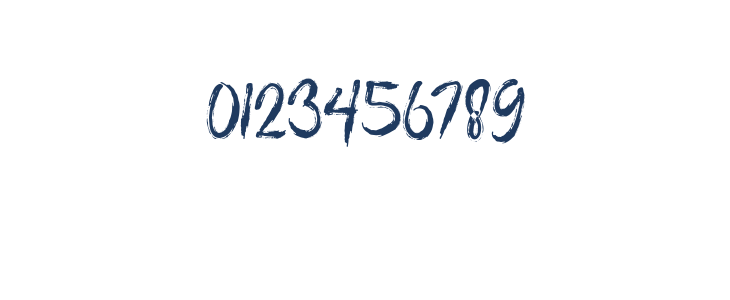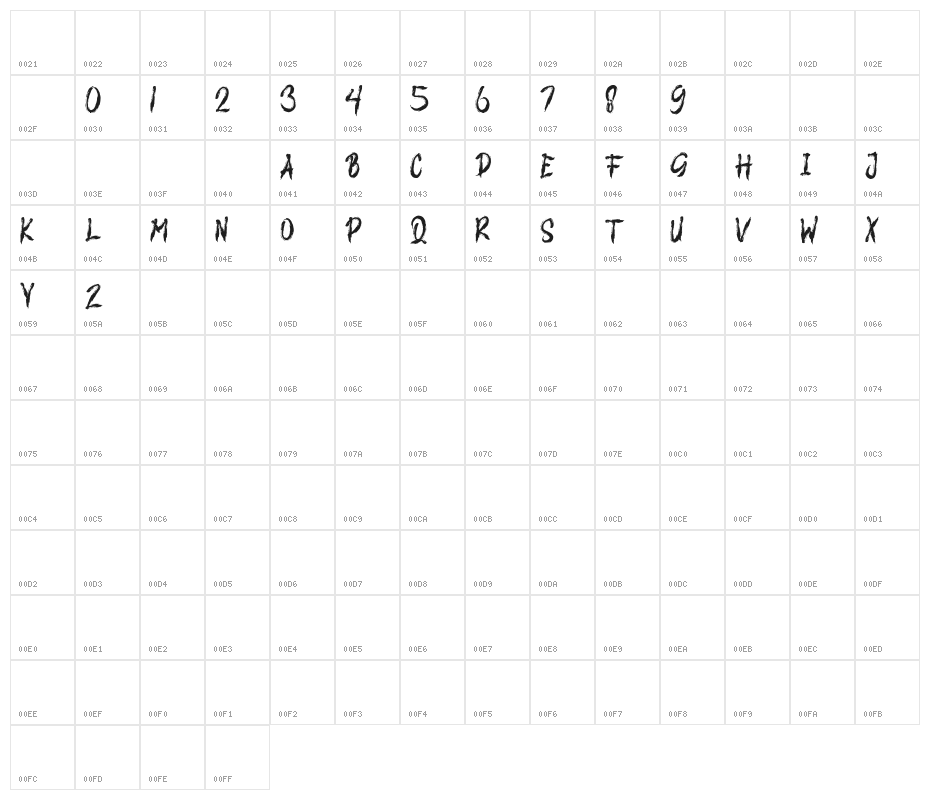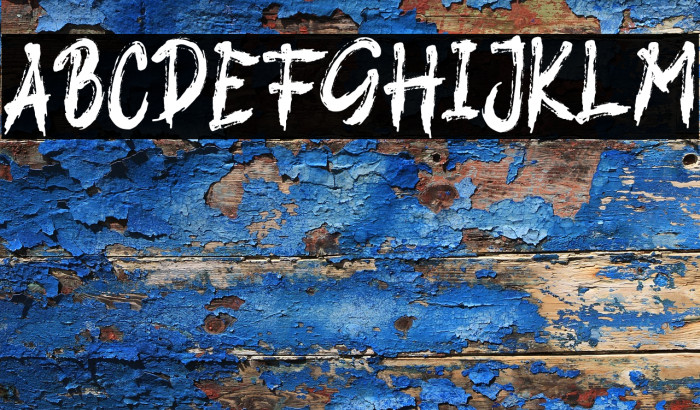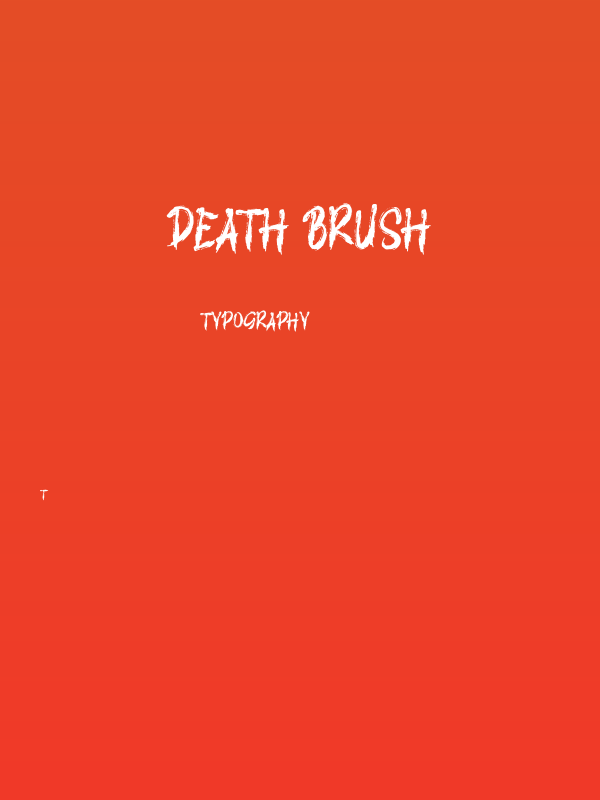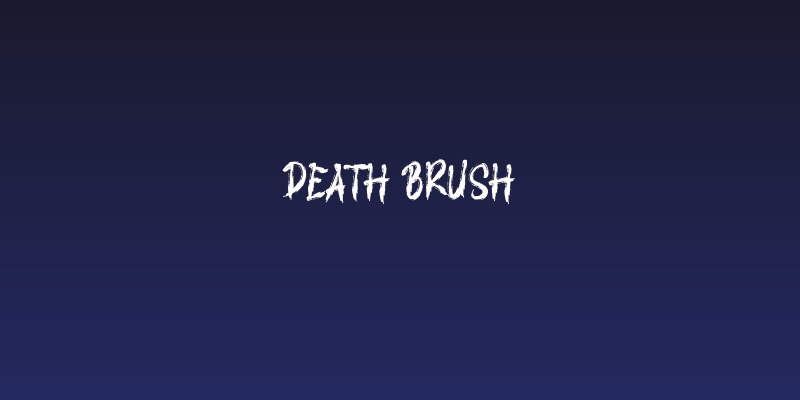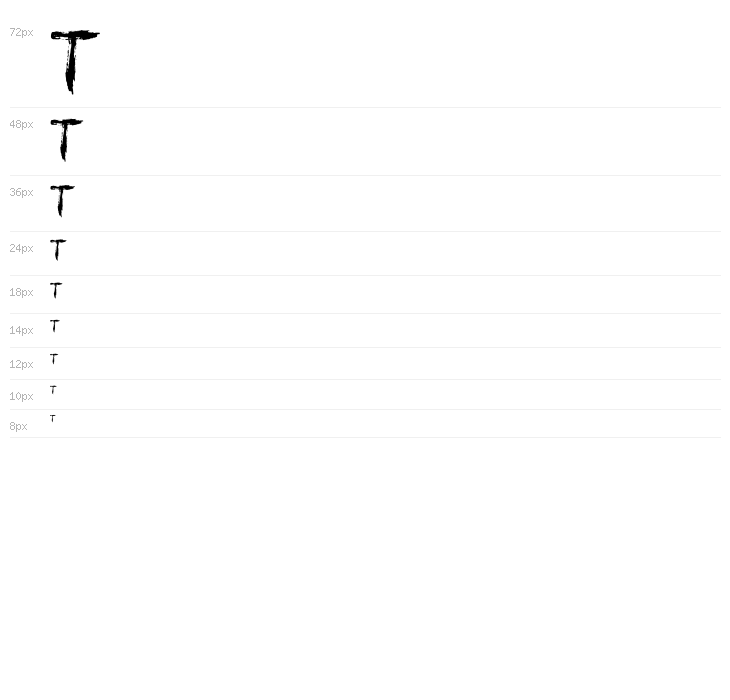
DEATH BRUSH Font
DEATH BRUSH Description
This font exudes a raw, energetic vibe with its brushstroke style, capturing a sense of movement and intensity. The characters are bold and dynamic, with irregular edges that mimic the natural flow of paint on a canvas. Each letter has a unique flair, contributing to an overall impression of spontaneity and creativity. The uppercase letters are particularly striking, with varying thicknesses that add depth and character. The numbers maintain the same artistic brushstroke quality, ensuring consistency across all elements. This font is perfect for projects that require a bold statement or an artistic touch.
| Overall Style | Modern, Artistic |
| Proposed Projects | Ideal for posters, album covers, branding, and creative projects that need a bold, artistic touch. |